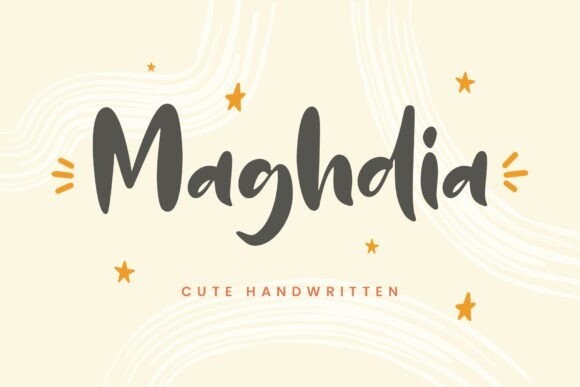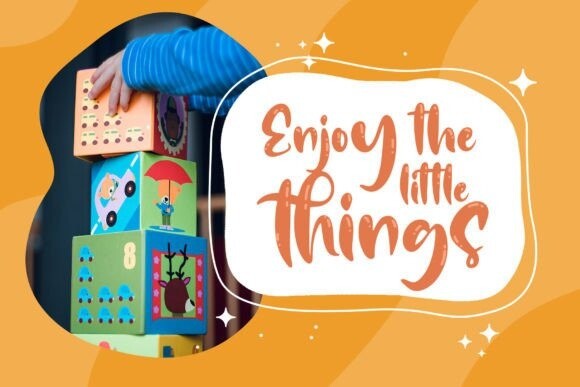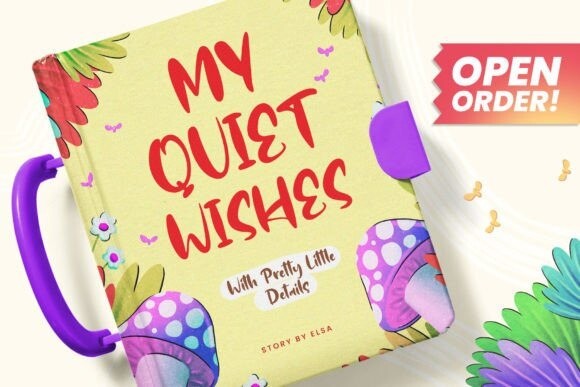
Maghdia Font
Maghdia Font a playful handwritten typeface. Created with lots of fun and modern look. This font is beautiful for your next project that needs a joyful style, equipped with some alternates characters and ligatures so that you can make a typographic design with ease!